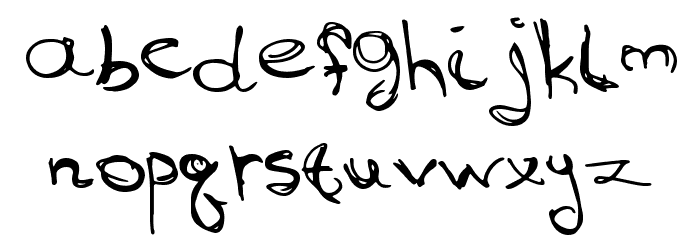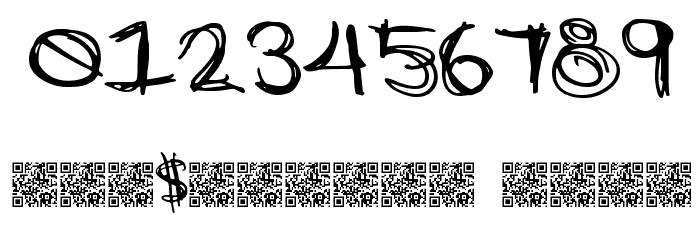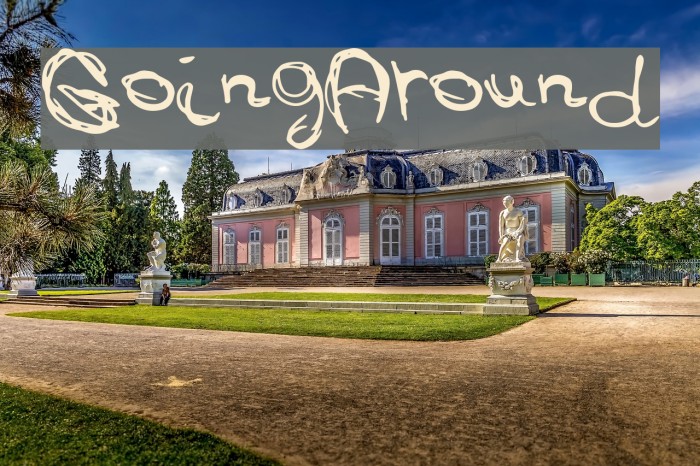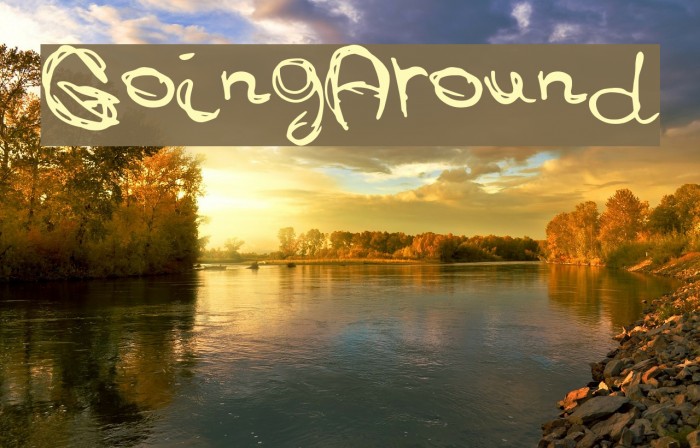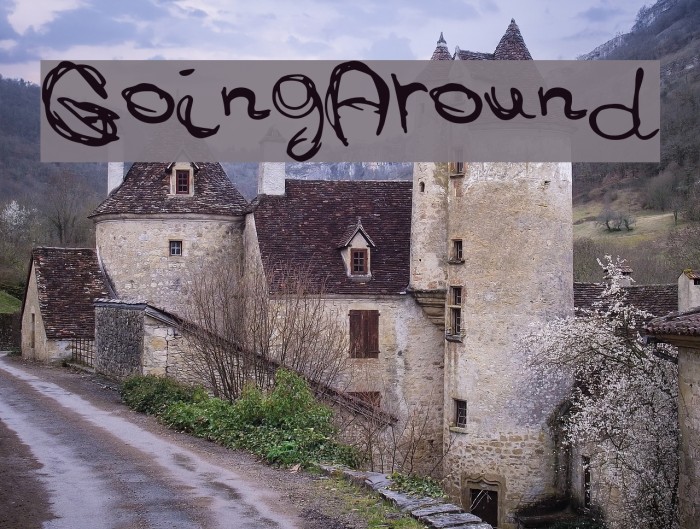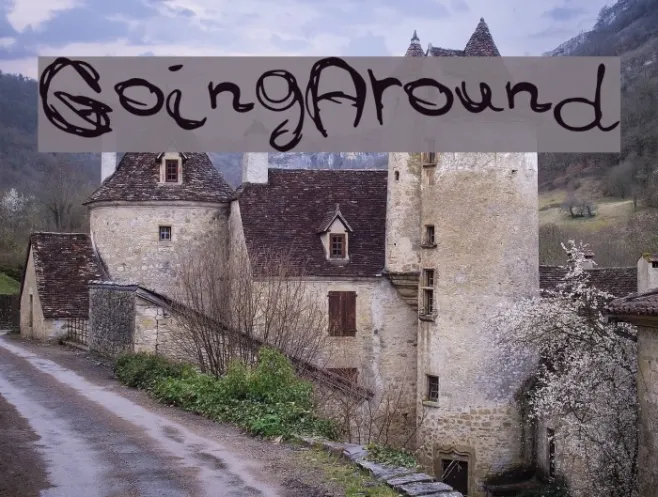
GoingAround Font
This font features a highly decorative and artistic style, characterized by its intricate and swirling letterforms. Each character appears to be hand-drawn with a playful and chaotic energy, making it stand out with its unique and whimsical appearance. The uppercase and lowercase letters maintain a consistent theme, with exaggerated curves and loops that give the font a dynamic and lively feel. The numbers and special characters follow the same design principles, ensuring a cohesive look across all elements. This font is perfect for projects that require a bold and creative touch, where the text itself becomes a visual element.
A decorative and artistic font with swirling, hand-drawn letterforms.
- Proposed Projects: Ideal for artistic projects, creative branding, posters, and unique invitations.
- Use Case: Logos, Posters, Creative Branding